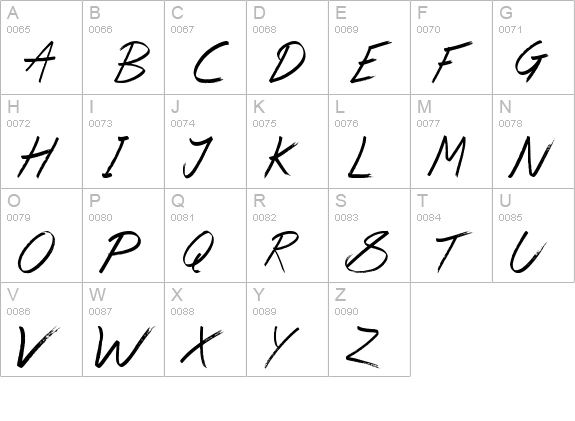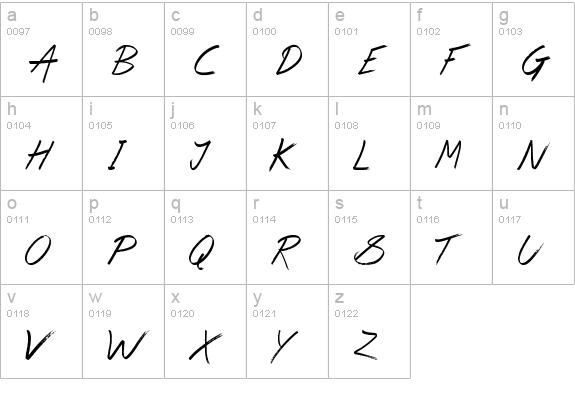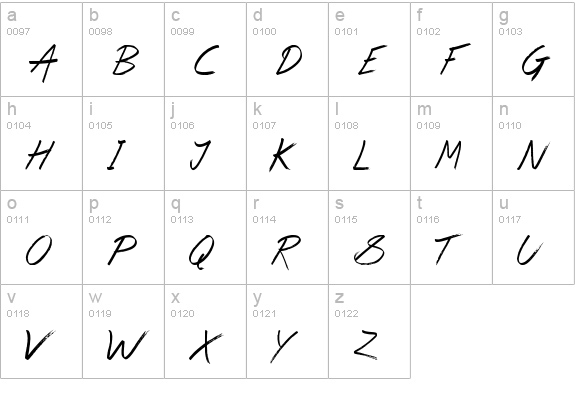
Winter Blues Font Details
Introducing Winter Blues, a captivating and enchanting font that perfectly captures the essence of the serene winter season. With its elegant and intricate strokes, this font effortlessly evokes a sense of tranquility, making it ideal for various design projects. Winter Blues is not just a font, but a work of art that seamlessly blends modernity with a touch of vintage charm. Its delicate curves and graceful lines create a harmonious balance, reflecting the beauty and ethereal nature of snow-covered landscapes. This font possesses a unique versatility, allowing it to shine in a wide range of applications. Whether you're designing a winter-themed wedding invitation, creating a cozy logo for a seasonal event, or crafting heartfelt greeting cards, Winter Blues will add a touch of sophistication and warmth to your creations. The best part? Winter Blues is available to you for free! That's right, this stunning font can be easily downloaded at FontsMarket.com, where you'll find an extensive collection of high-quality fonts to suit all your design needs. So, why wait? Embrace the enchantment of winter and elevate your designs with the timeless elegance of Winter Blues.